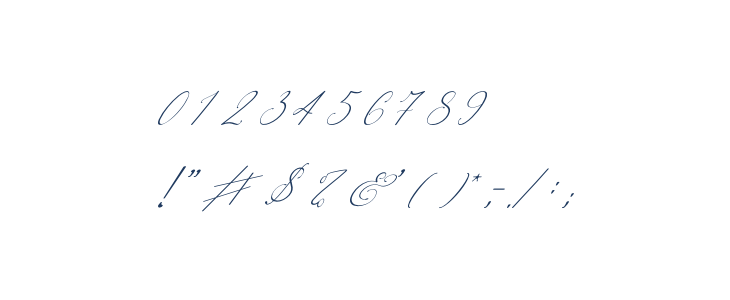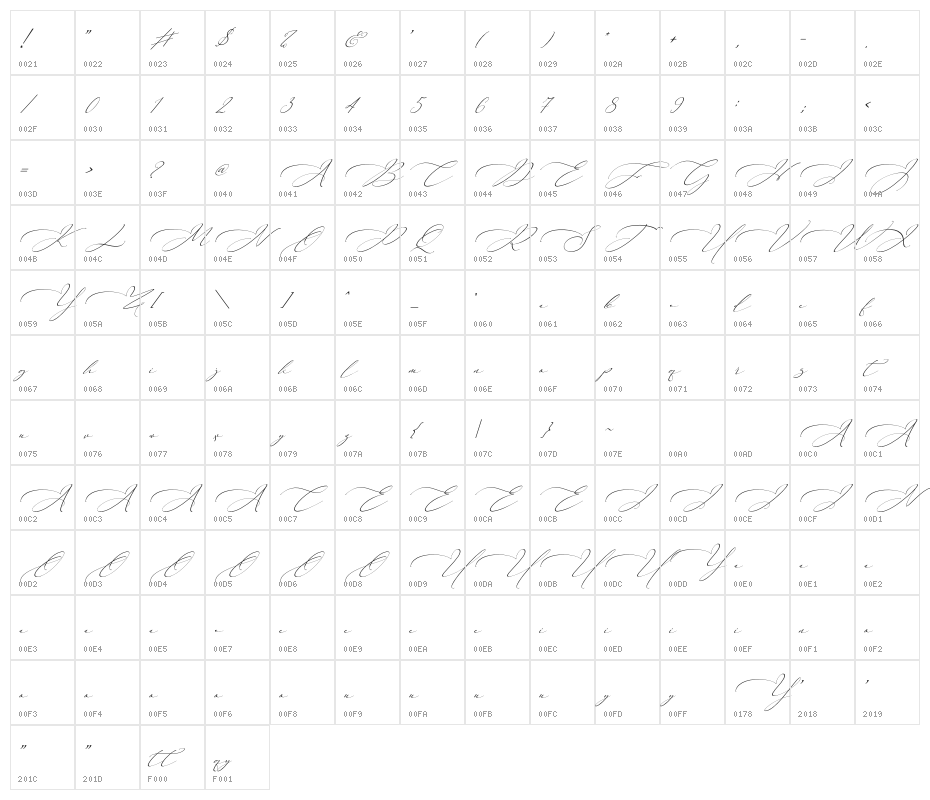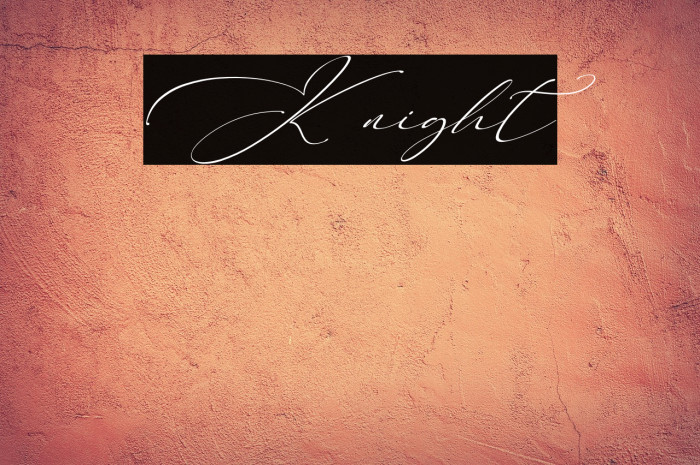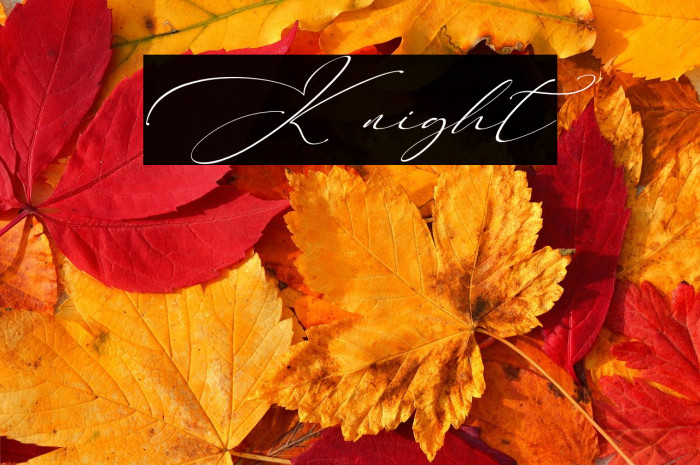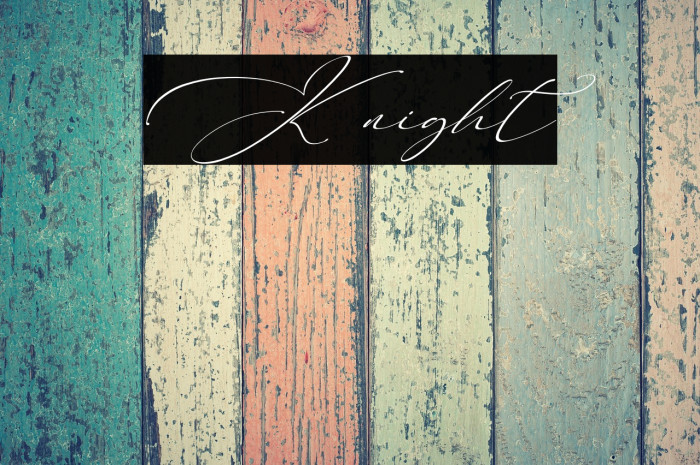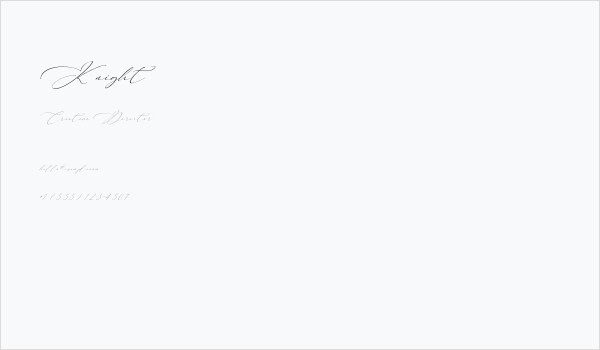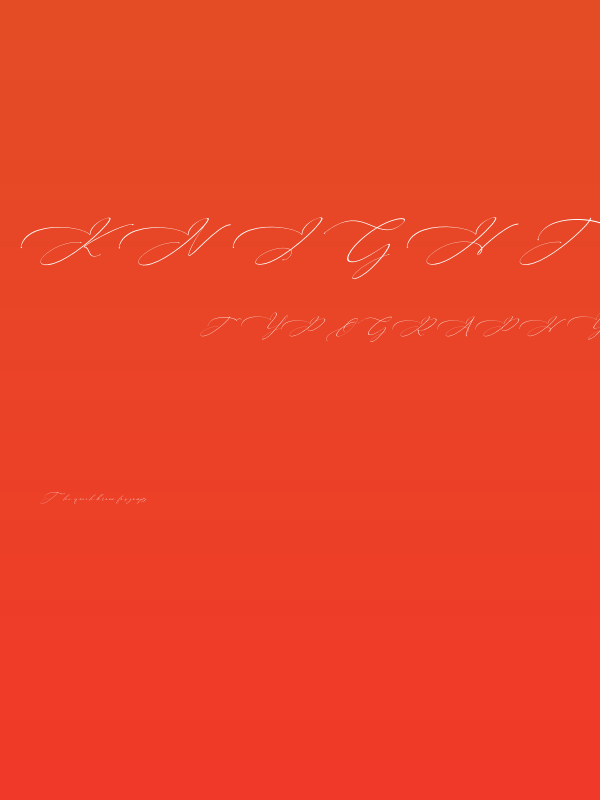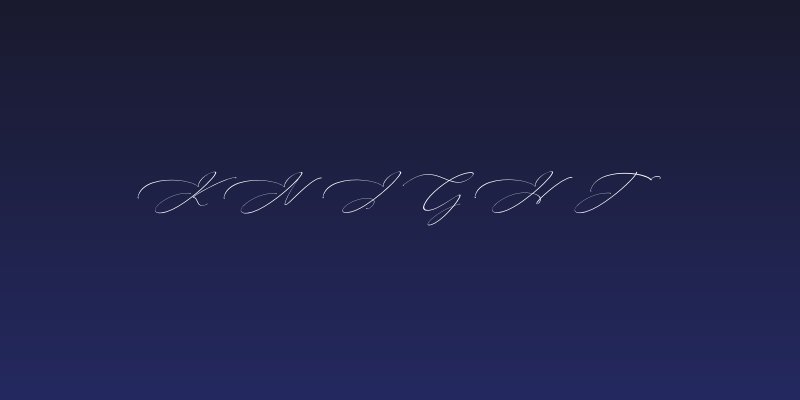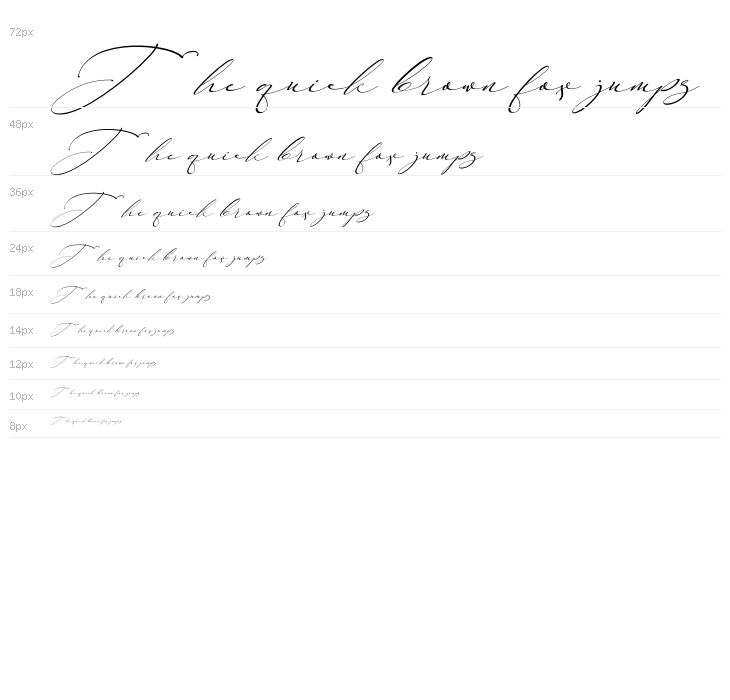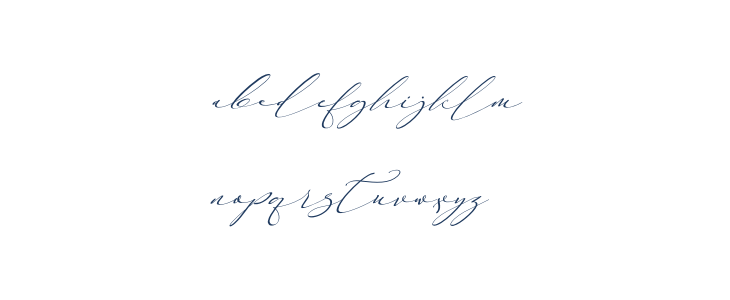
Knight Font
Knight Description
This elegant script font features a flowing, cursive style with delicate, sweeping lines and a refined aesthetic. The characters are intricately designed with a consistent slant, giving it a graceful and sophisticated appearance. The uppercase letters are ornate, with extended loops and flourishes, while the lowercase letters maintain a smooth, connected flow. The numerals and special characters complement the overall style, maintaining the same elegant curves and attention to detail. This font exudes a sense of luxury and formality, making it ideal for high-end branding and design projects.
| Overall Style | Elegant, Sophisticated |
| Use Case | Logos, Invitations, Branding |
| Proposed Projects | Ideal for wedding invitations, luxury branding, elegant stationery, and formal event materials. |